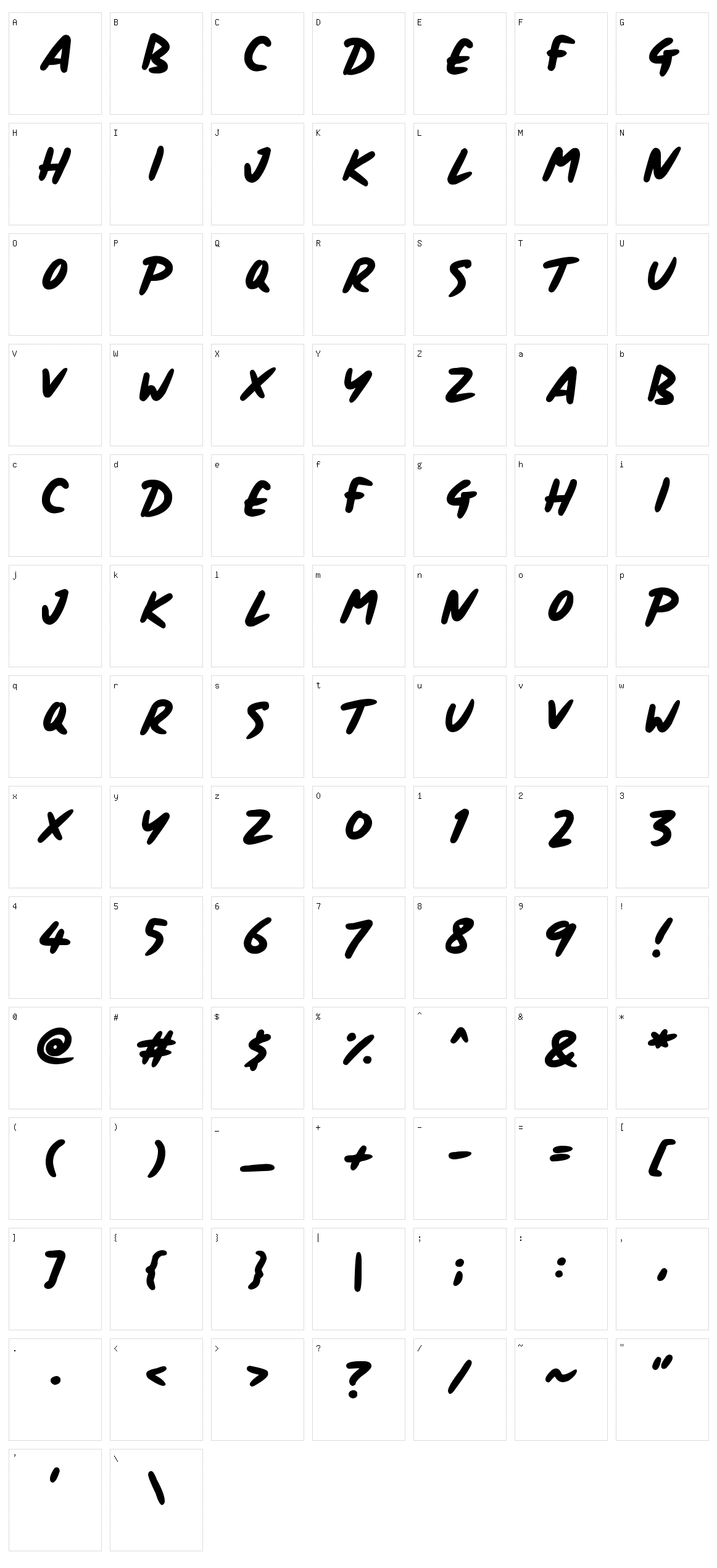
The free font Signboard is carefully designed by Hawtpixel, showcasing a thoughtful balance of creativity and usability and falls under the Script font style. When you download the ZIP file, it contains only 78.24 KB of font files, making it lightweight and quick to download. Please review the license details below to understand permitted usage and distribution rights. If license information is not available, we recommend using this font for personal projects only or contacting the author directly for commercial usage permissions.
*New version - revised "G" to improve readability